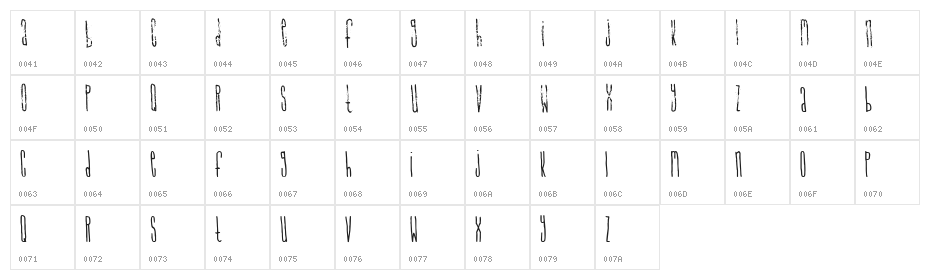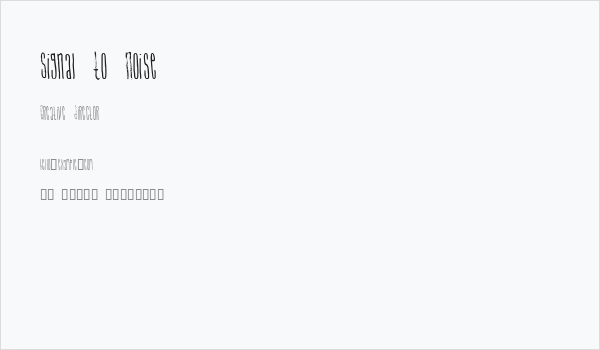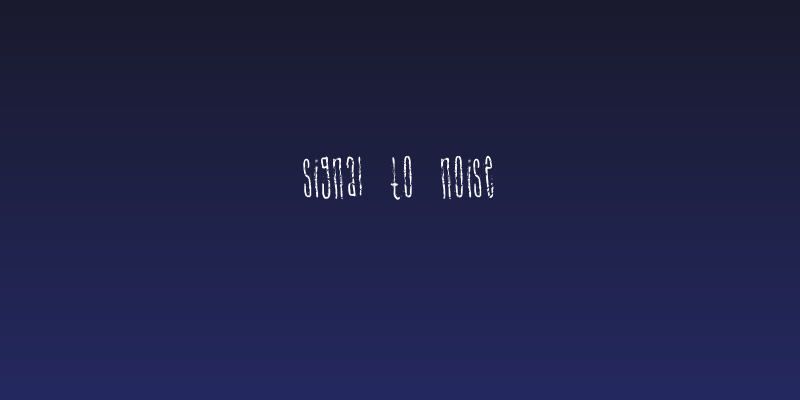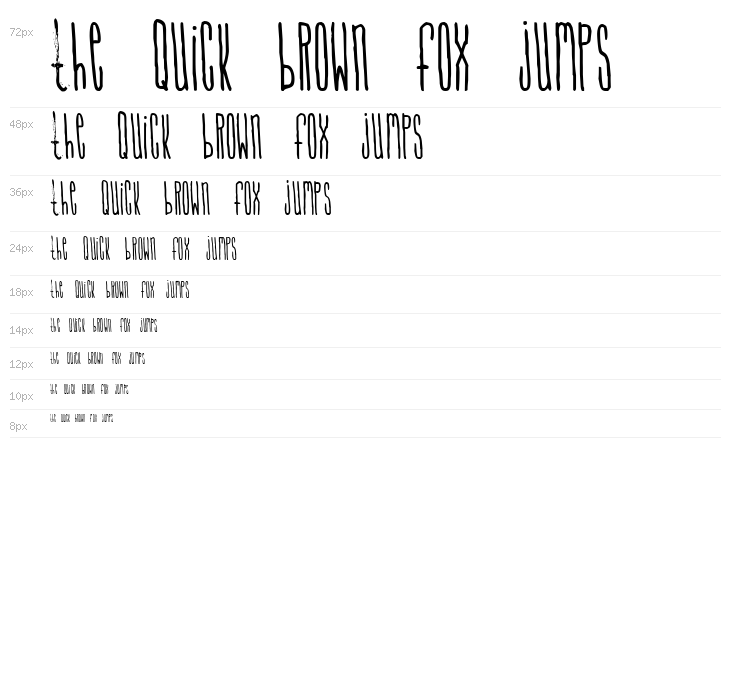
Signal To Noise Font
Signal To Noise Description
This font features a distressed, grunge aesthetic with a tall, narrow structure. The uppercase and lowercase letters exhibit a worn, textured appearance, giving them a unique, edgy feel. The characters are elongated, with a consistent vertical emphasis, and the overall design suggests a sense of movement and energy. The font's irregular edges and varying stroke thicknesses contribute to its raw and dynamic look, making it ideal for projects that require a bold, unconventional style. The special characters maintain the same distressed quality, ensuring a cohesive appearance across all text elements.
| Overall Style | Grunge, Edgy, Urban |
| Use Case | Headlines, Posters, Branding |
| Proposed Projects | Ideal for music album covers, edgy posters, urban-themed designs, and alternative branding projects. |